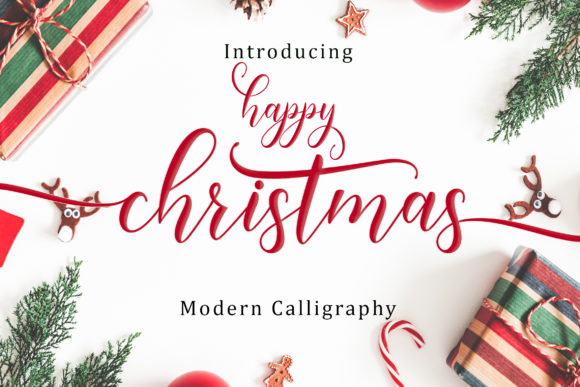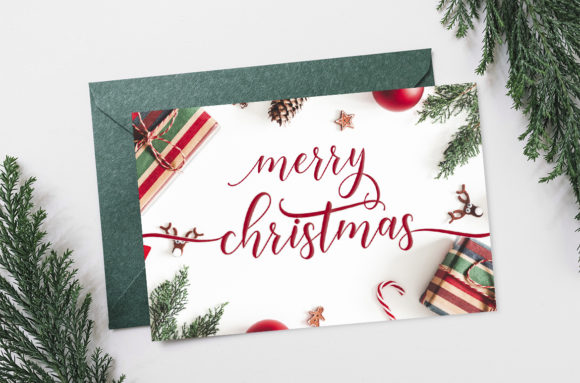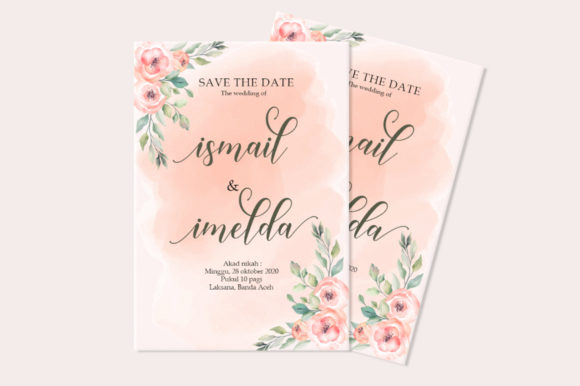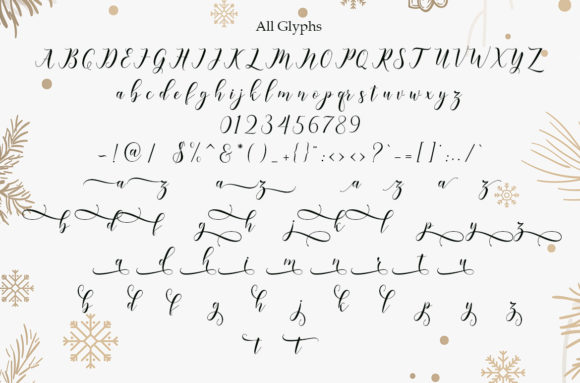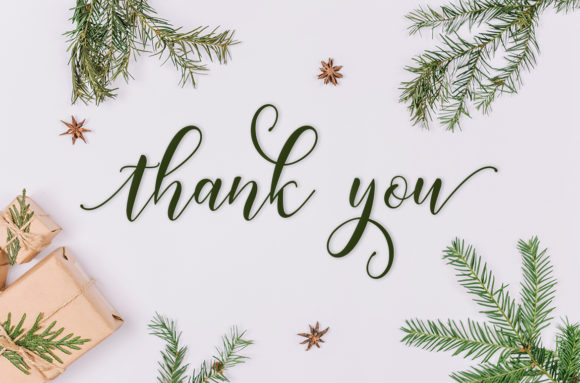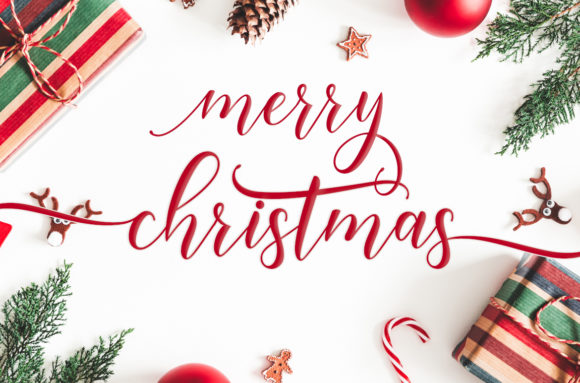
Happy Christmas Script Font
About Happy Christmas Script Font
Happy Christmas is the perfect script font for all things Christmas. Use it to add a lovely holiday feel to any design project!